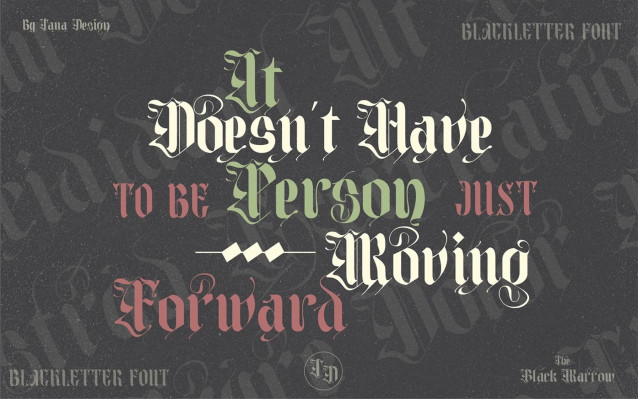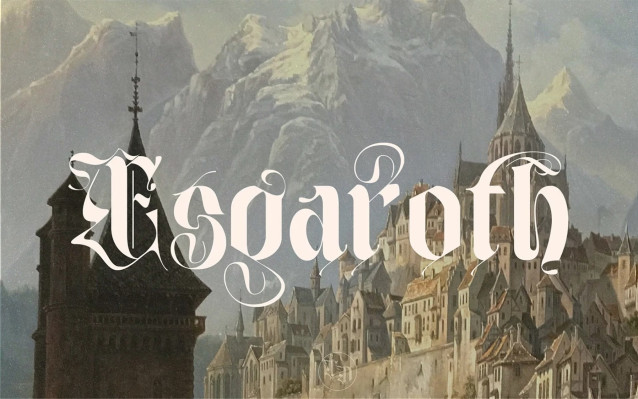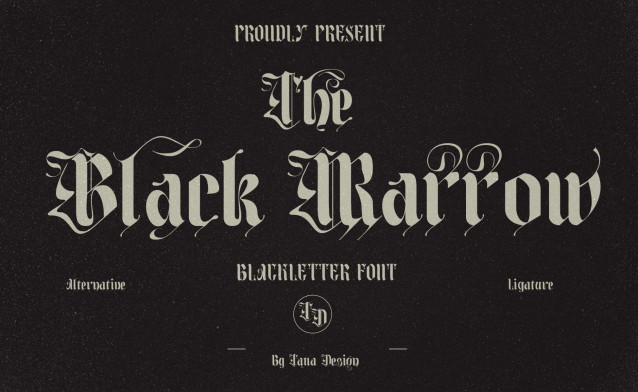
The Black Marrow Font
The Black Marrow Font – Modern Decorative Font A stunning mix of traditional and modern boldness. Designed to attract attention, this typeface exudes an aura of mystery, power and sophistication that is at first glance captivating.Perfect for a wide range of creative projects, this font stands out in branding, logos, apparel designs, album covers, tattoos, packaging, posters, event invitations, headlines and editorial layouts. Whether you want a dramatic aesthetic or a bold statement, this typeface makes an unforgettable impact.Its striking design makes it an excellent choice for print and digital media, allowing your projects to stand out in any format.